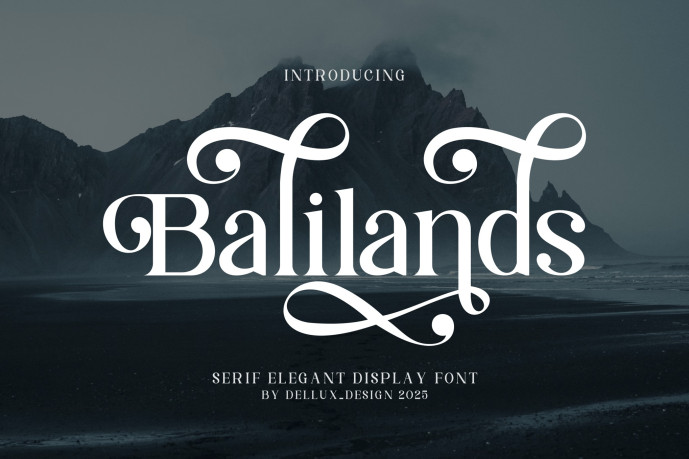
Balilands Font
Designer: dellux_design
Balilands Font is a unique font. Can make it easier to convey the message in your design. Use for awesome display, labeling, movie sceen, poster, movie title, gigs, album covers, logos, and much more.